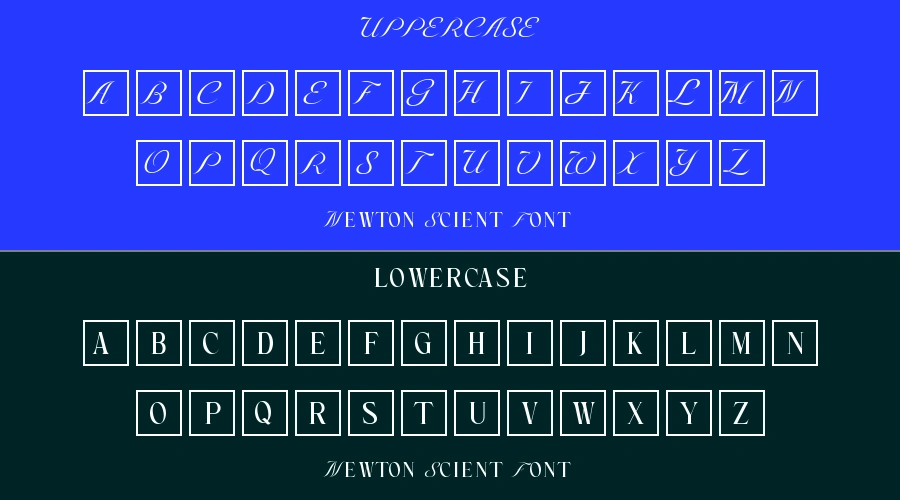
About Newton Scient Font
Newton Scient Font embodies typographic excellence through its masterful combination of rounded corners and authenticity. Created for literary works, this typeface delivers exceptional adaptability and adaptability across all applications. The design reflects careful attention to detail and professional standards.
Advanced capabilities include distinctive organic curves and versatile initial forms, giving designers creative control. When used in logos, Newton Scient Font exhibits remarkable output consistency. The harmonious balance between stem weight and emotional appeal sets this typeface apart.